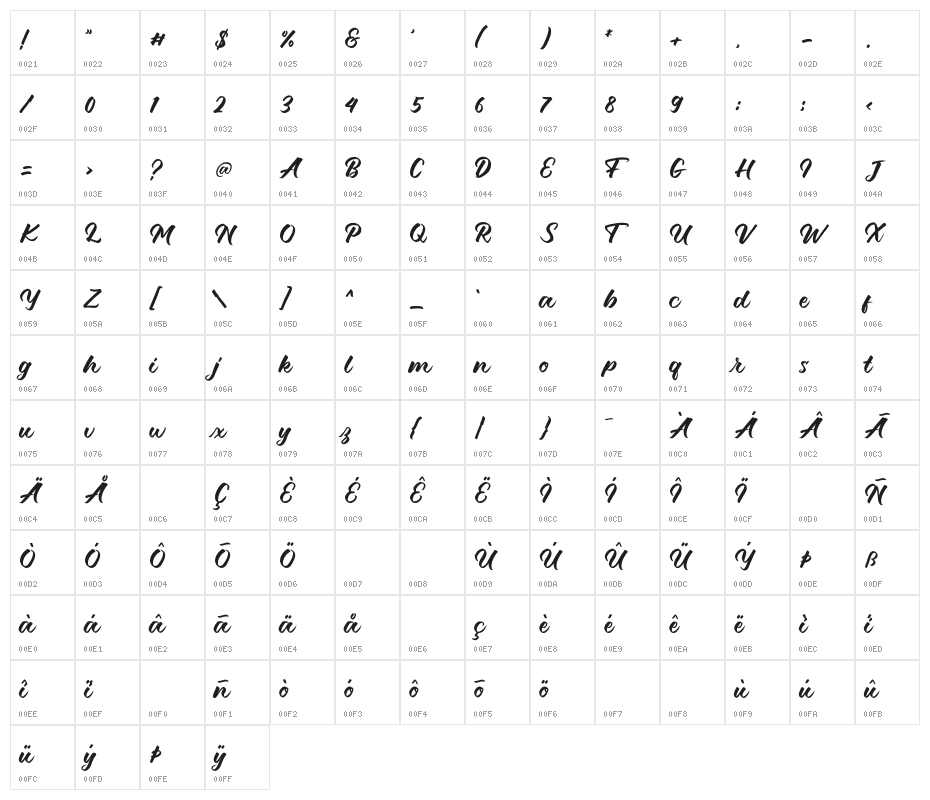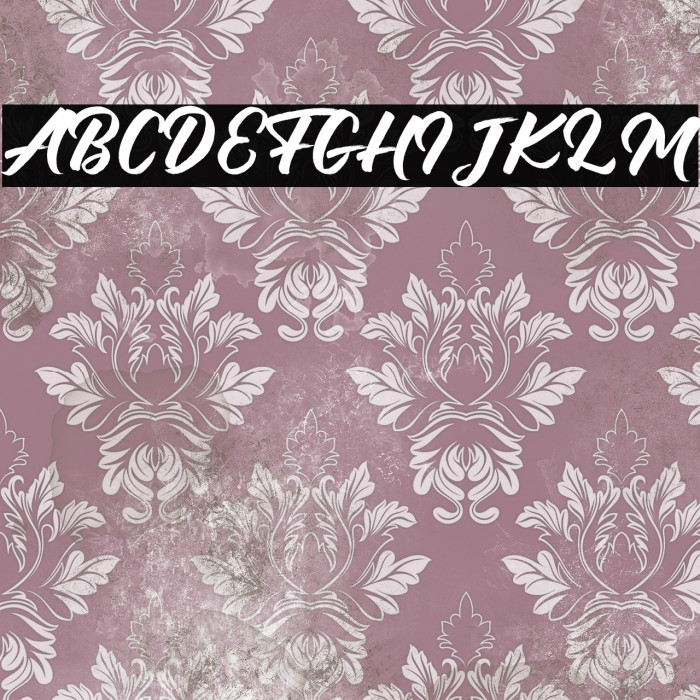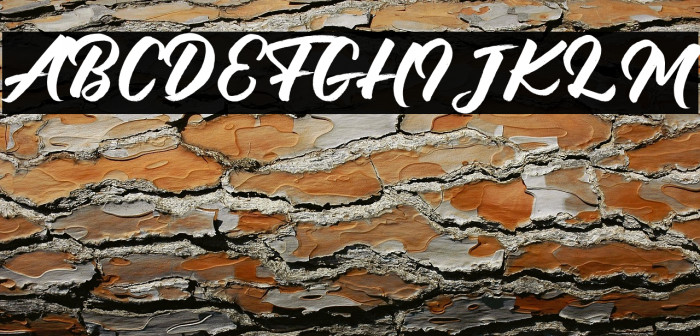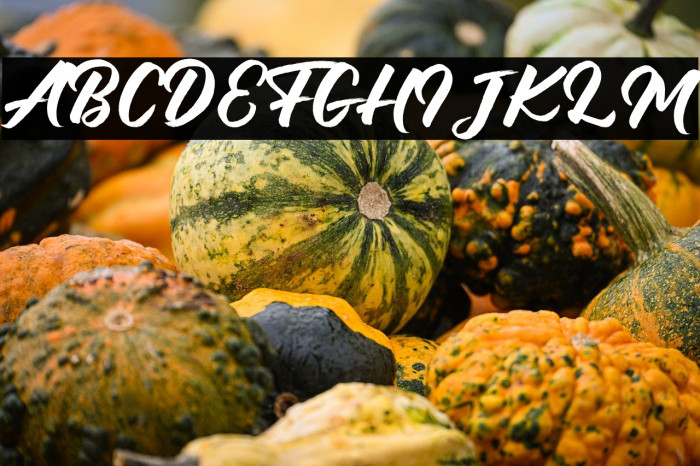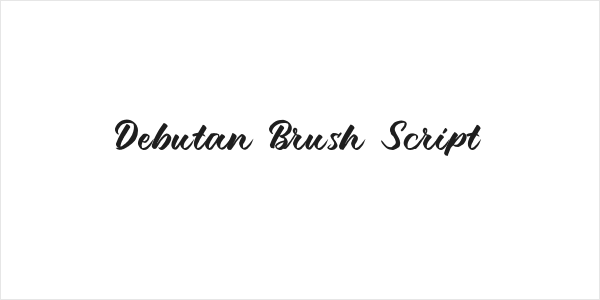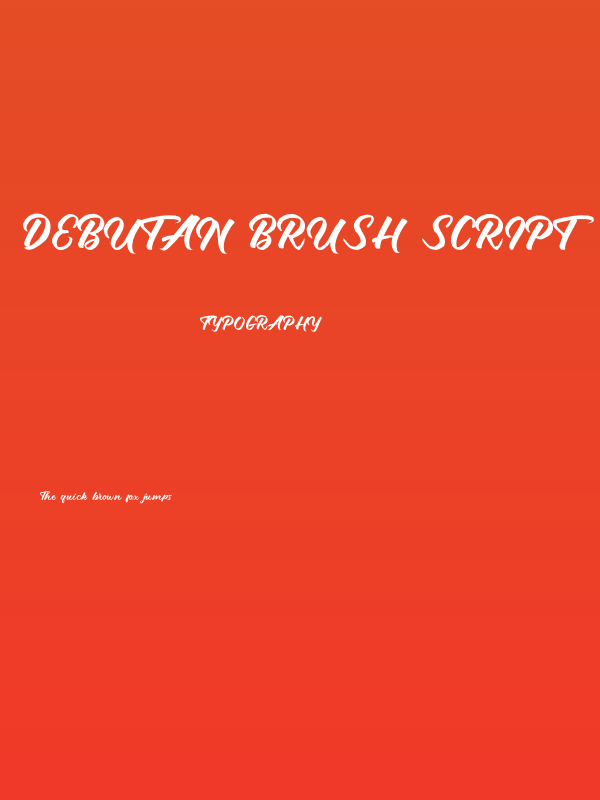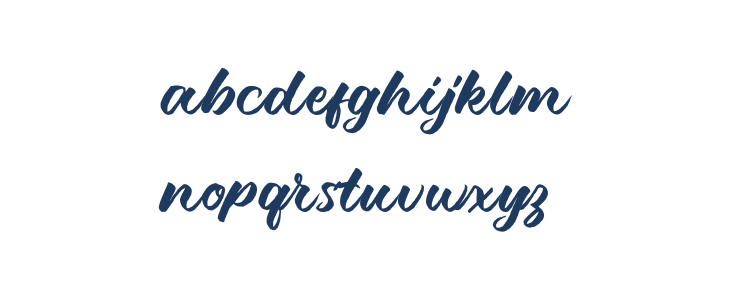
Debutan Brush Script Font
Debutan Brush Script Description
This font exudes a lively and energetic vibe, characterized by its flowing, cursive script style. The letters are connected in a fluid manner, reminiscent of handwriting with a brush pen. The strokes are bold and expressive, giving the font a dynamic and artistic appearance. It features a high contrast between thick and thin strokes, enhancing its visual impact. The uppercase letters are slightly more ornate, while the lowercase letters maintain a consistent, smooth flow. This font is perfect for projects that require a personal touch or a creative flair.
| Use Case | Logos, Headlines, Artistic projects |
| Proposed Projects | Ideal for greeting cards, invitations, logos, and artistic branding projects. |